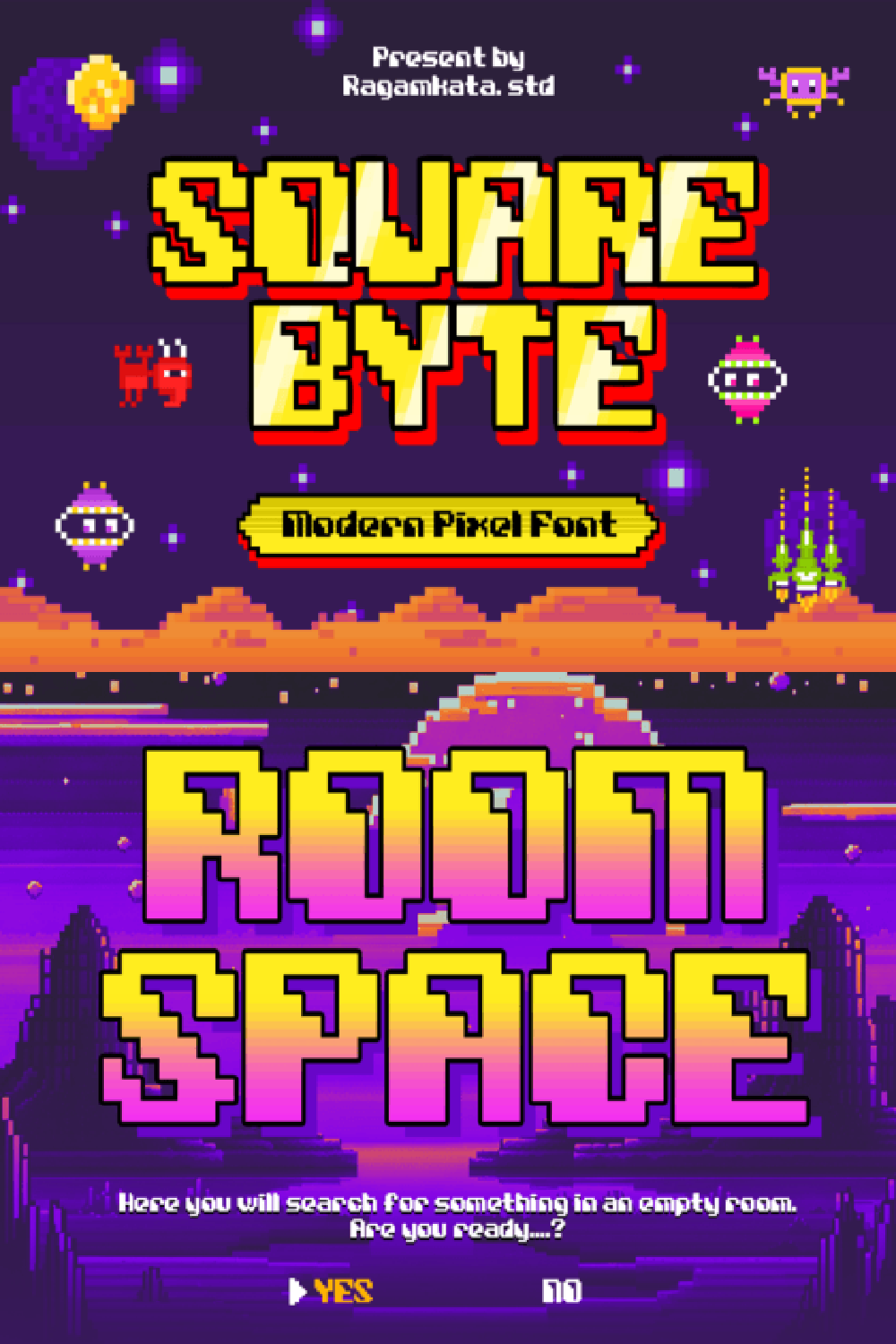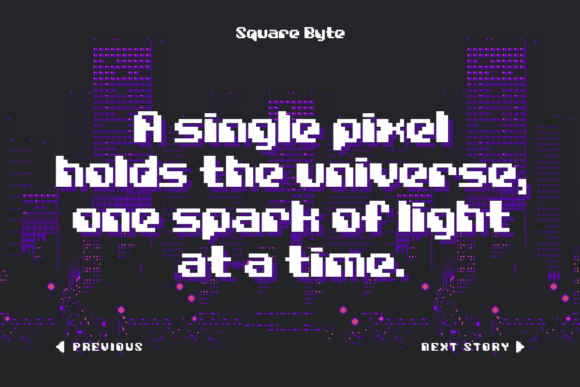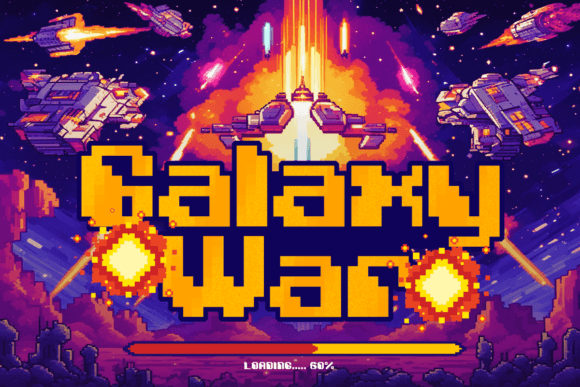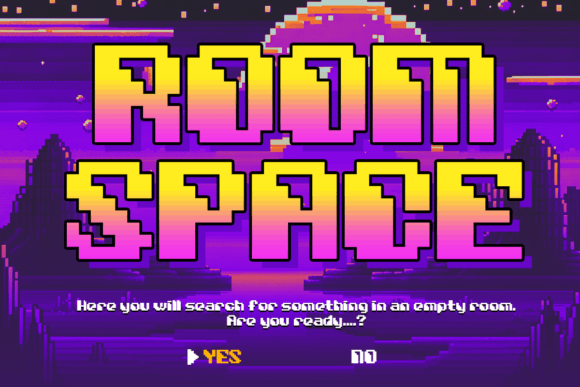
Square Byte Font: Retro Pixel Typography for 8-bit Designs!
About the Square Byte Font
The wait is over! The incredible Square Byte Font is now available for your design toolkit. Step into a vibrant retro world with Square Byte, a modern pixel font inspired by the golden age of classic video games! With bold, blocky designs and a unique style, this font is perfect for all your creative needs.
Use Square Byte for:
🎮 Retro-style game titles
📺 Arcade-themed posters
👾 Creative projects with an 8-bit or 16-bit vibe
This font blends nostalgia with a modern twist, making your designs stand out from the crowd. Create unforgettable visual experiences with Square Byte
Square Byte Font Usage Examples